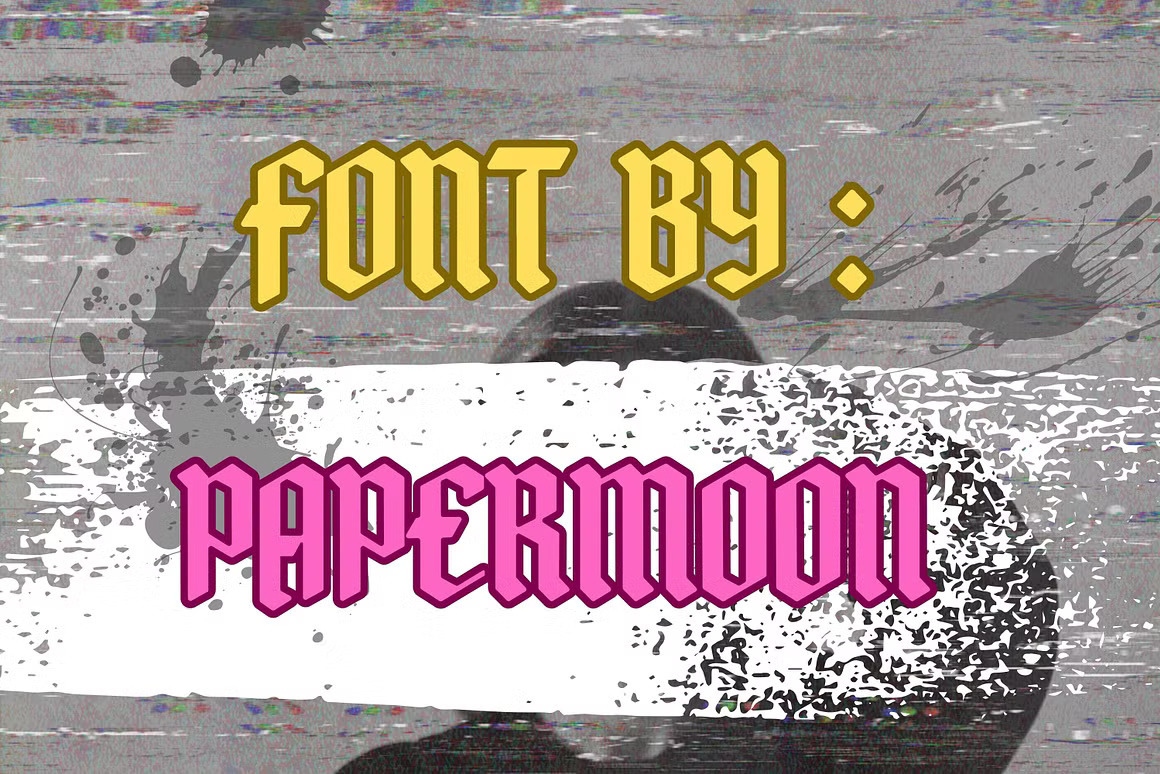
RebelRune - Rounded Blackletter Font
Introducing "RebelRune" - A Retro Blackletter Font with a Bold Twist
Embrace the charm of the past with RebelRune, a blackletter font that masterfully combines retro aesthetics with modern elegance. With its refined, rounded edges, RebelRune adds a unique and bold touch to your creative projects, sparking inspiration and setting your designs apart.
Dare to stand out with RebelRune—a typeface designed for those who want their work to make a statement. Featuring alternative characters, ligatures, and extensive multi-language support, this font ensures your designs can reach a global audience with style and versatility.
Total of 212 Glyphs: A rich set of characters for limitless creativity Uppercase: Command attention with bold, uppercase options Numerals & Punctuation: Carefully crafted for seamless integration in designs Alternates & Ligatures: Add distinctive and harmonious elements to your typography Multilanguage Support: Reach a global audience with support for over 60 Latin-based languages RebelRune isn’t just a font; it’s a bold statement that bridges the gap between the past and the future. Let your creativity flow and bring this typeface to life in your next project.